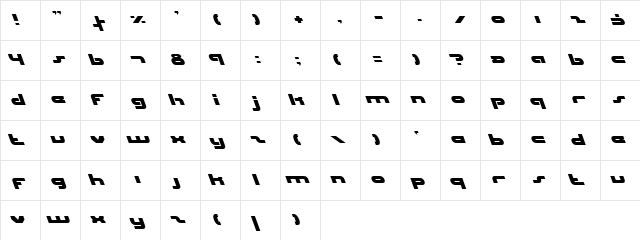
uni-sol left left Font Preview
uni-sol left left
uni-sol left left Font Details
Design Context for uni-sol left Typeface
uni-sol left is a composed and adaptable typeface that performs quietly and consistently across a wide range of design contexts.